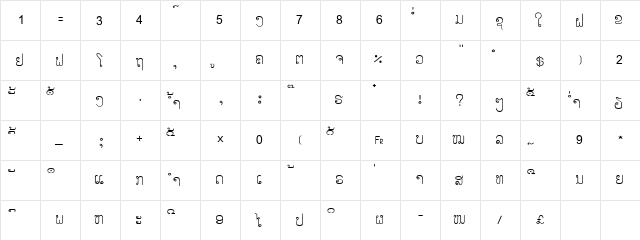
alice_0 Medium
Design Context for alice_0 Typeface
alice_0 takes a measured approach to typography — its balanced proportions and neutral character make it a reliable workhorse for both digital and print work.